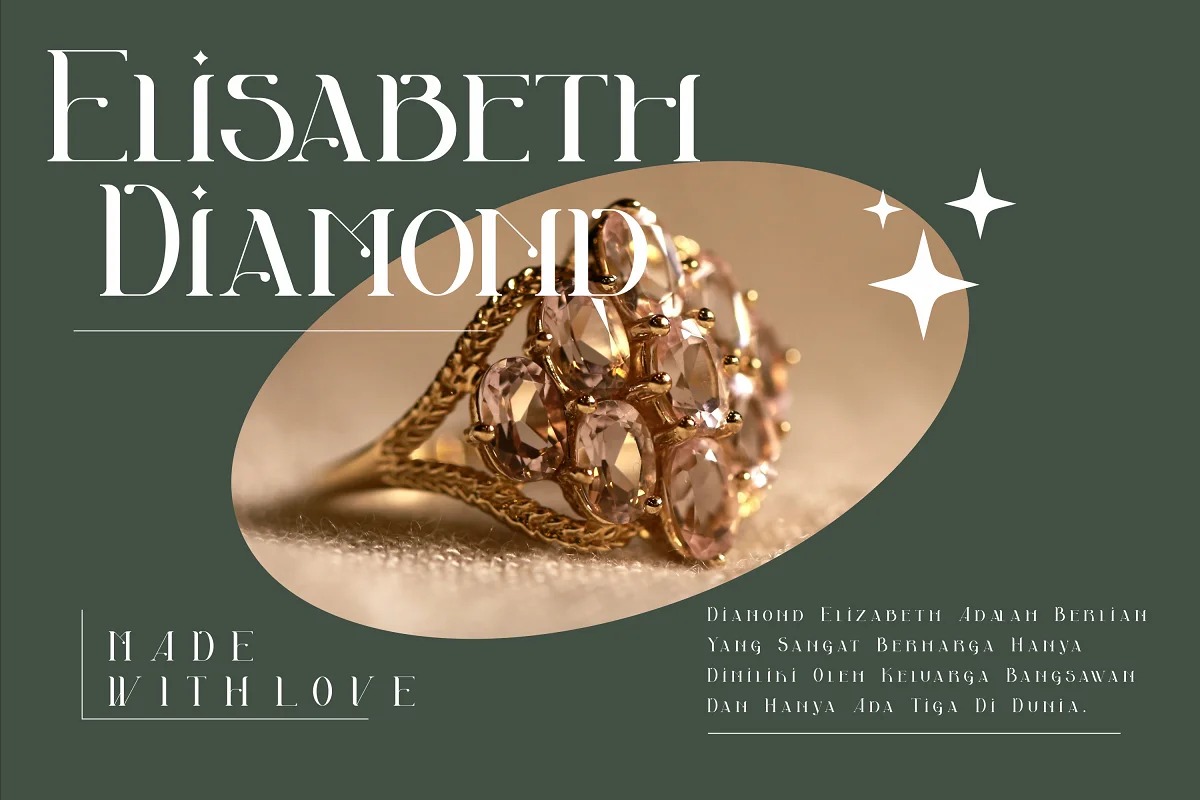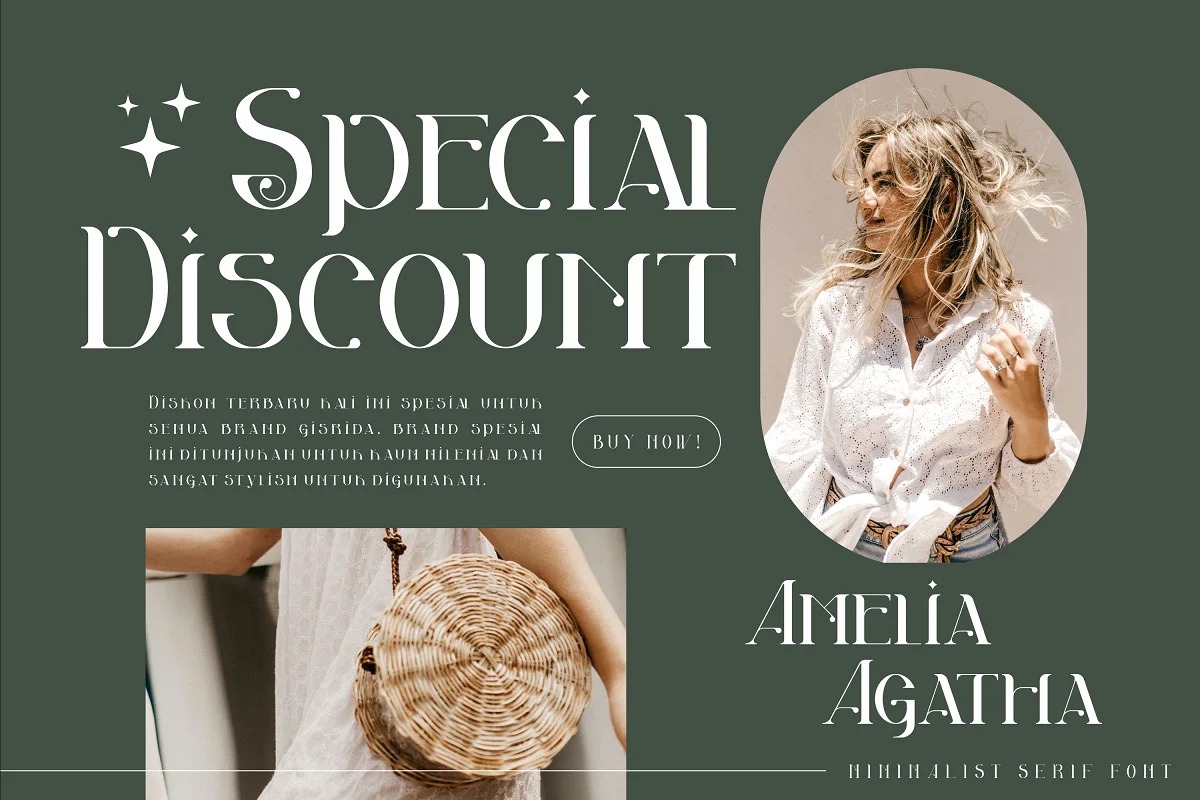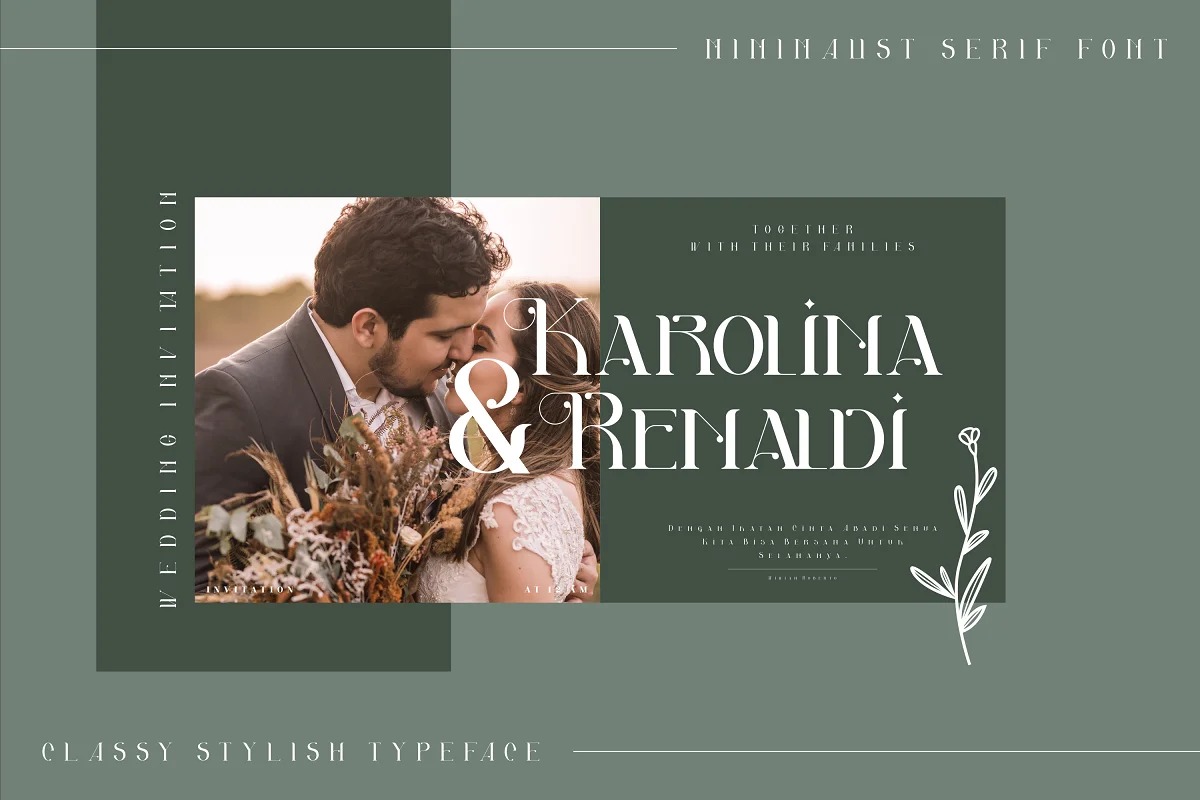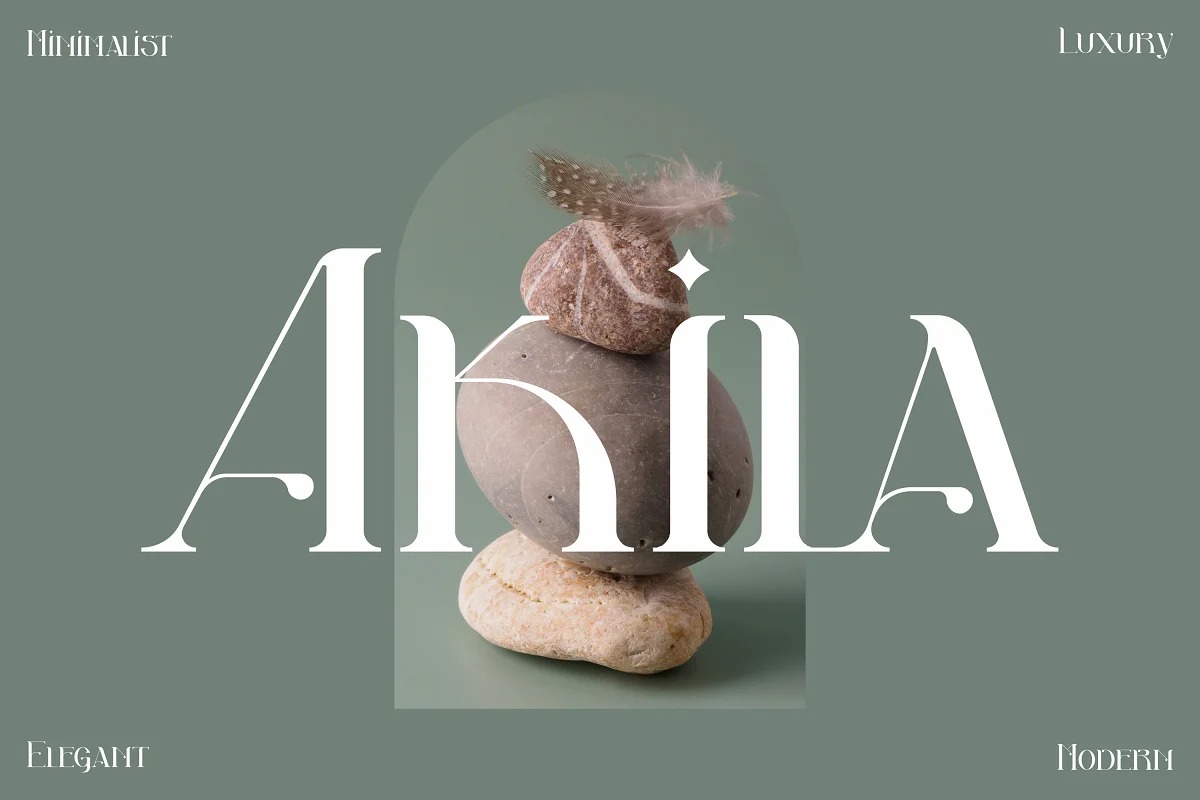
Akila Serif Font
This font designed by Storytype Studio is a elegant and classy serif typeface inspired by the famous minimalist logo. This typeface is perfect for an elegant & luxury logo, book or movie title design, fashion brand, magazine, clothes, lettering, quotes, and so much more.